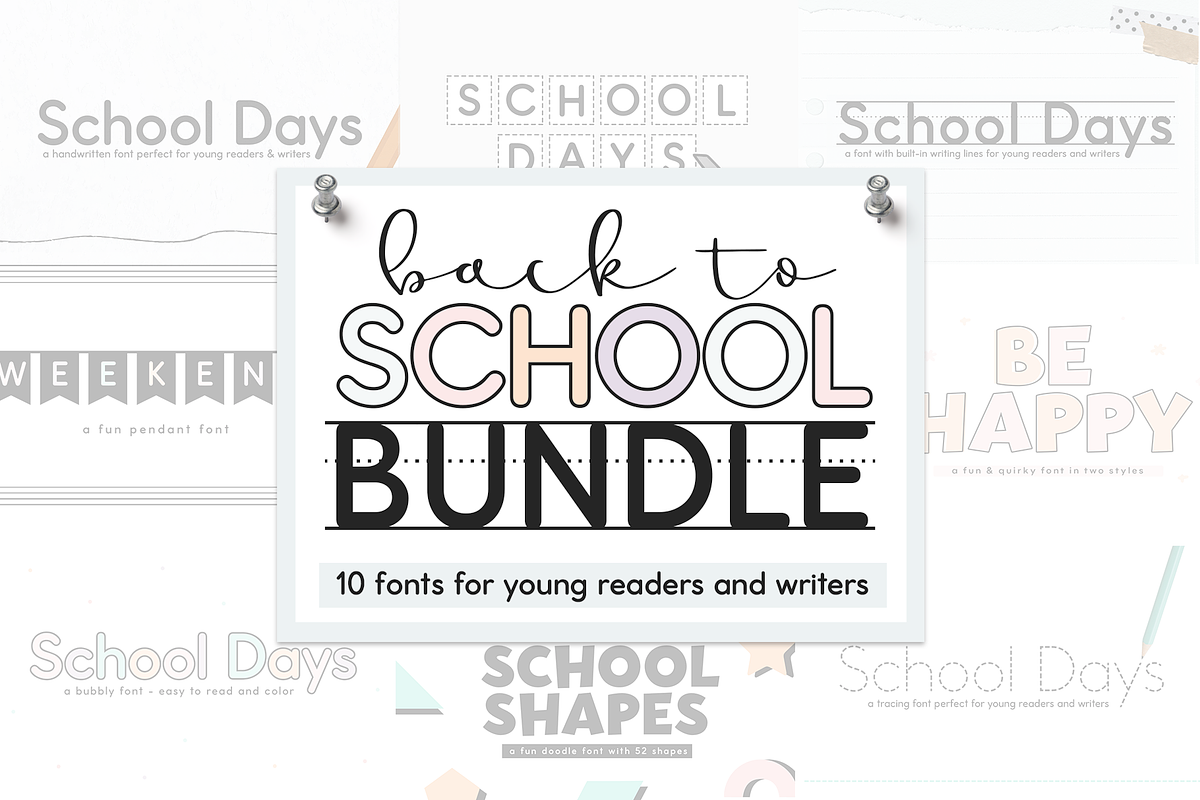
School Font Bundle | 10 Fonts Free Download is a curated collection of playful, easy-to-read typefaces designed specifically with educators, students, and kid-friendly projects in mind. This versatile bundle includes a mix of handwritten, print-style, and decorative fonts that are perfect for classroom materials, worksheets, posters, crafts, and more.
Each font in the bundle is crafted to balance fun and functionality—ideal for creating an engaging learning environment or designing cheerful, educational content. Whether you're a teacher, homeschool parent, or designer working on school-related resources, this bundle saves you time while boosting creativity.
Brighten up your educational projects with this fun and functional font pack designed just for school vibes!